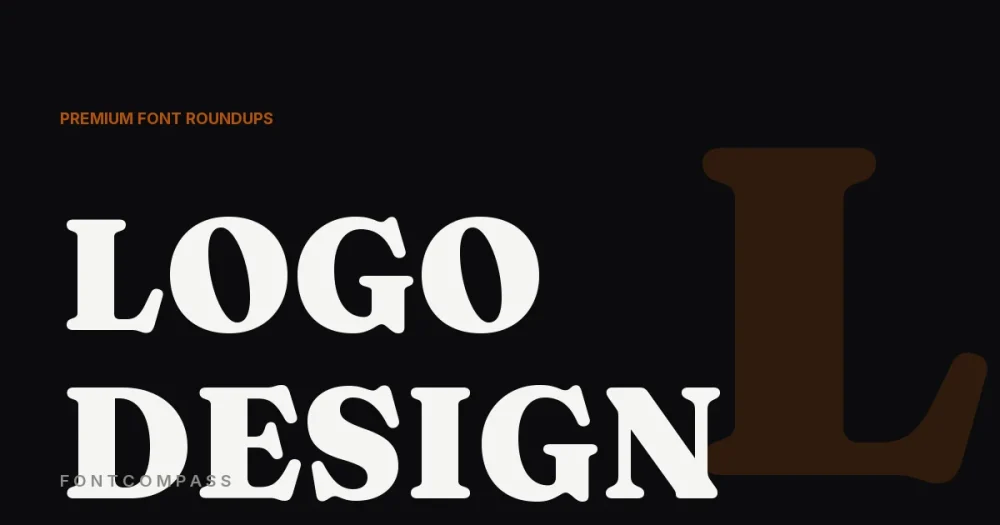
Every “free fonts for logo design” list online recommends the exact same handful of Google Fonts — which means your logo risks looking like a hundred other brands that grabbed the same free file. A logo is the one place where a few hundred dollars on a proper typeface actually pays for itself: you get a font almost nobody else in your space is using, a license that explicitly covers commercial branding use (free fonts often have murky or missing commercial terms), and professional hinting that keeps the letterforms crisp from a business card to a billboard. These are the premium fonts for logo design actually worth that investment.
Gotham — Hoefler&Co.
Drawn by Jonathan Hoefler and Tobias Frere-Jones after studying the hand-painted signage of 1930s New York, Gotham became the default American logo font of the 2010s — most famously carrying Barack Obama’s 2008 campaign branding. It’s confident without being cold, which is exactly why it’s still the safe, professional choice a decade later.
Brandon Grotesque — HVD Fonts
Hannes von Döhren designed Brandon Grotesque with rounded corners and geometric bones softened just enough to feel friendly rather than corporate — a common pick for lifestyle and wellness brands that want to look modern without seeming cold.
Bodoni — Linotype
Giambattista Bodoni’s razor-sharp contrast between thick and hair-thin strokes has signaled high fashion since the 18th century — it’s the backbone of countless magazine mastheads and luxury wordmarks that want to borrow that same editorial authority.
Bickham Script — Adobe Originals
An elegant, flowing copperplate script with genuinely useful OpenType alternates for avoiding awkward letter collisions — the professional standard for logos that need real calligraphic elegance rather than a generic cursive font.
Geometrica — PeGGO Fonts
A low-contrast, rounded geometric sans across 10 weights plus italics — named one of FontShop’s best sans-serifs of its release year. The sheer weight range makes it genuinely useful for building an entire brand system around one typeface, not just a single logotype.
Bebas Neue Pro — Dharma Type
The professional, fully-featured successor to the free Bebas Neue — real lowercase letters, genuine italics, and a full weight range for a condensed all-caps logotype that needs to work at both massive and tiny sizes.
Frequently Asked Questions
Are premium fonts really worth it for a small business logo?
For a logo specifically, yes — it’s the one brand asset you’ll reuse everywhere for years, and a distinctive, properly licensed typeface avoids both the generic-free-font look and any commercial licensing gray areas.